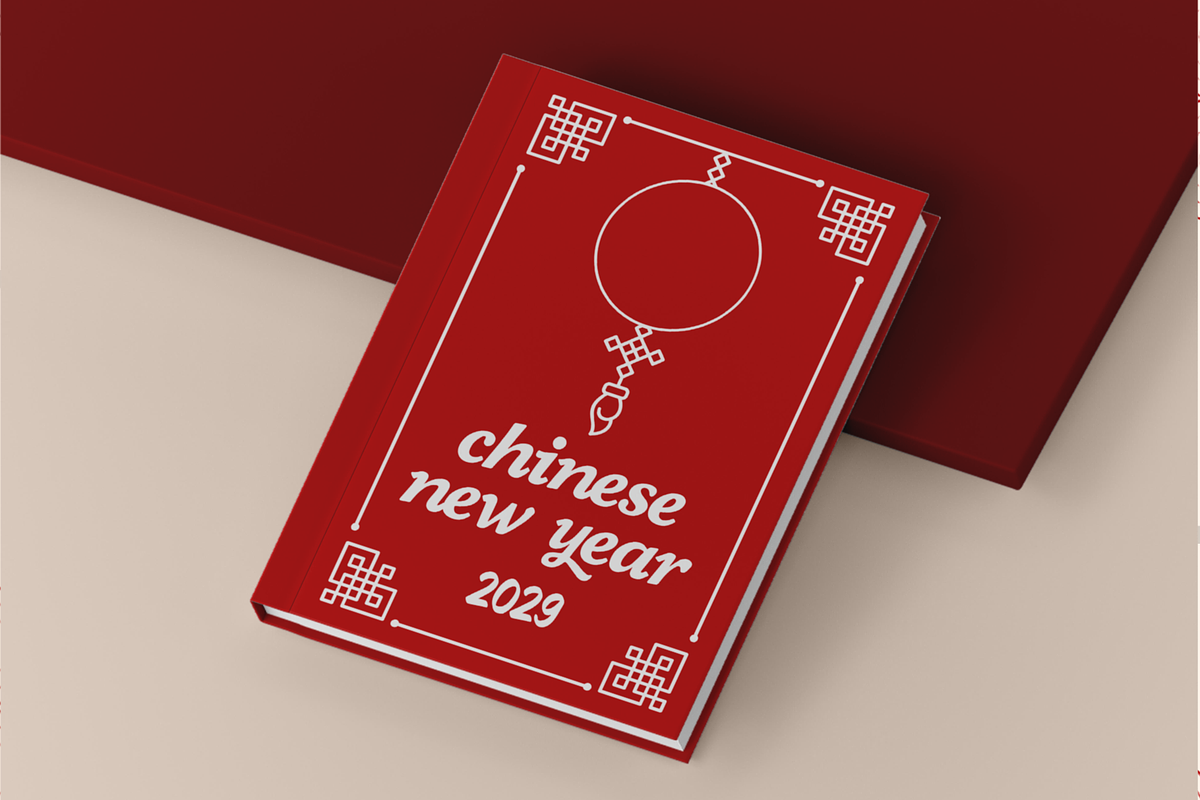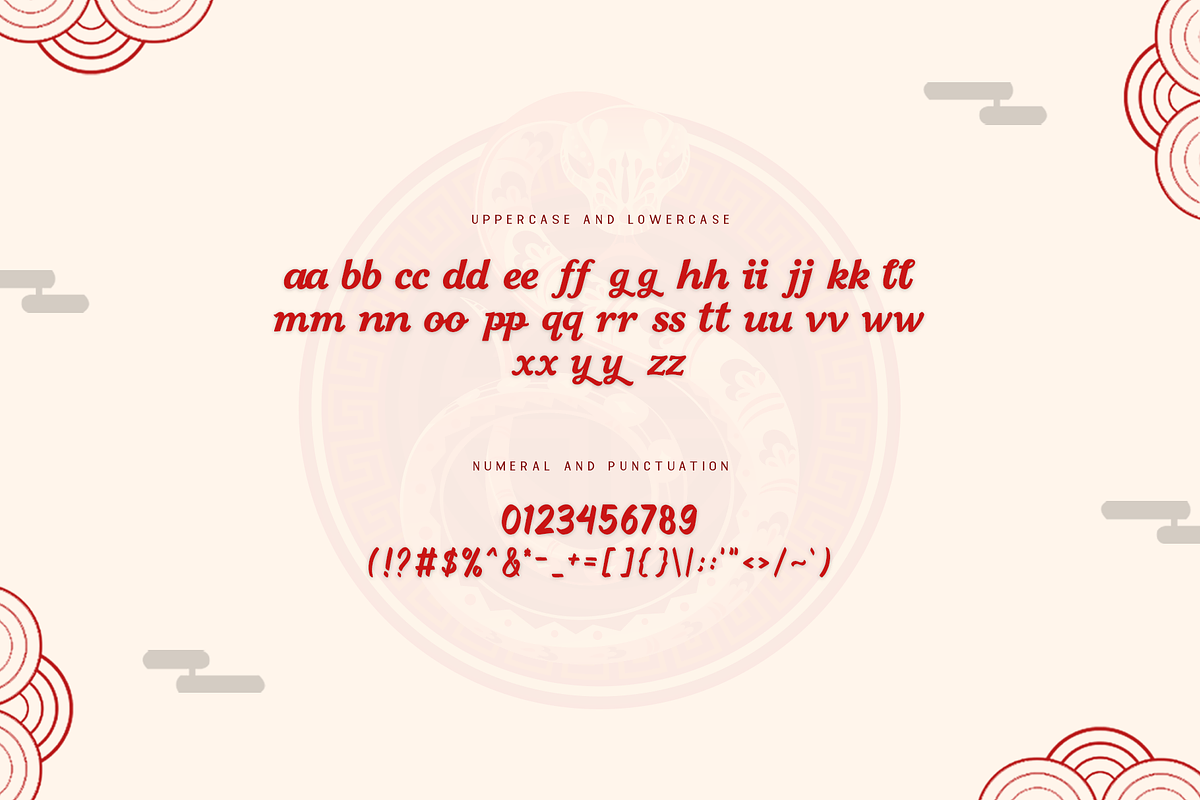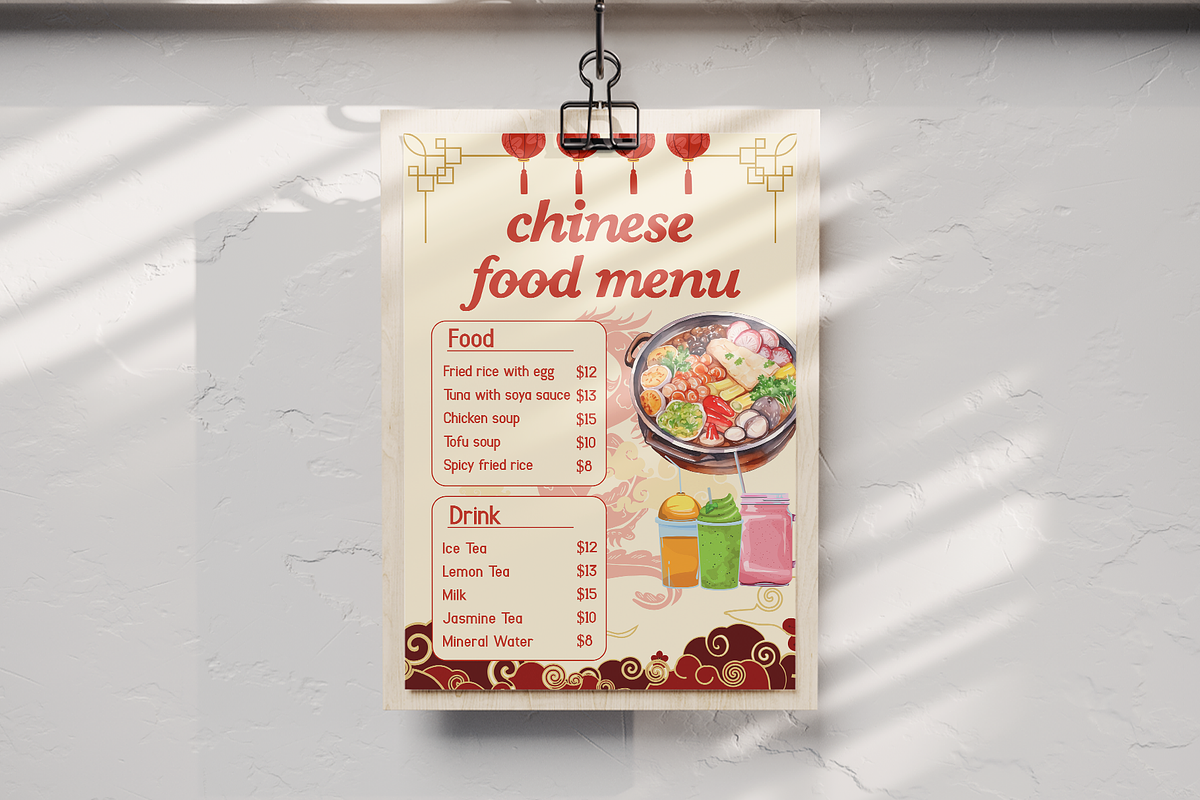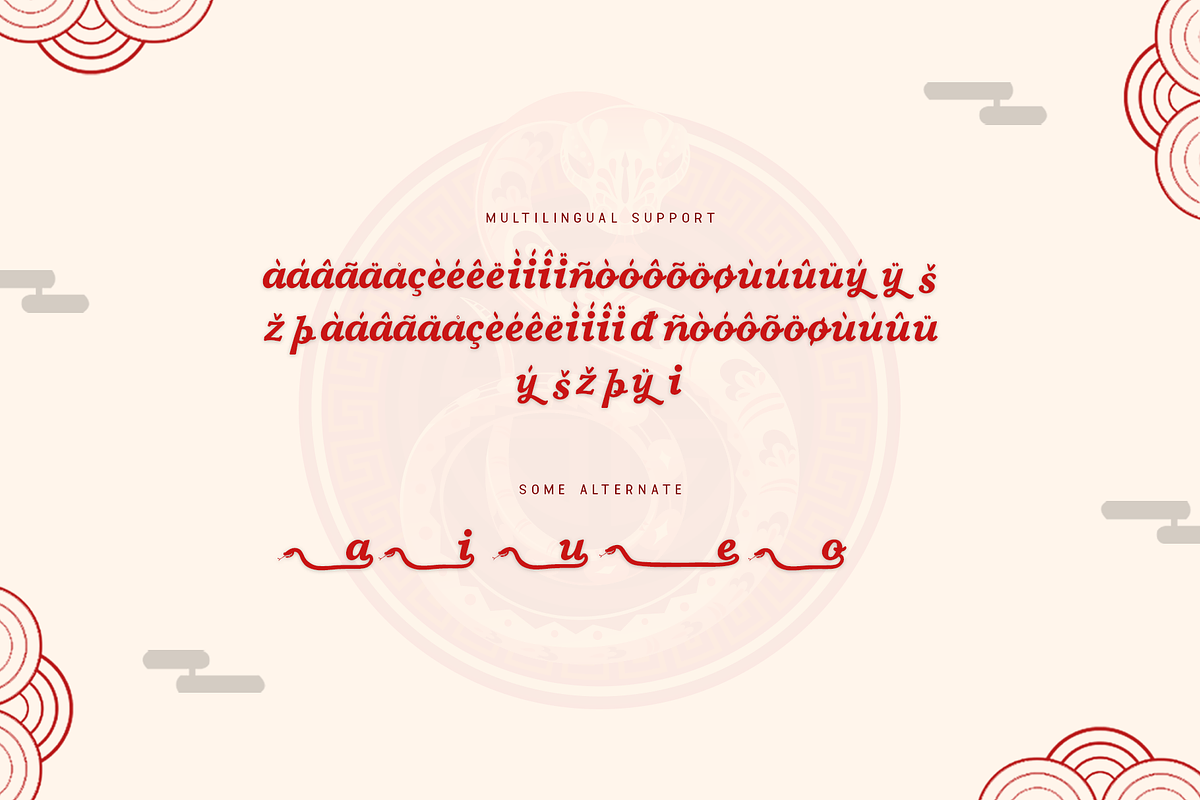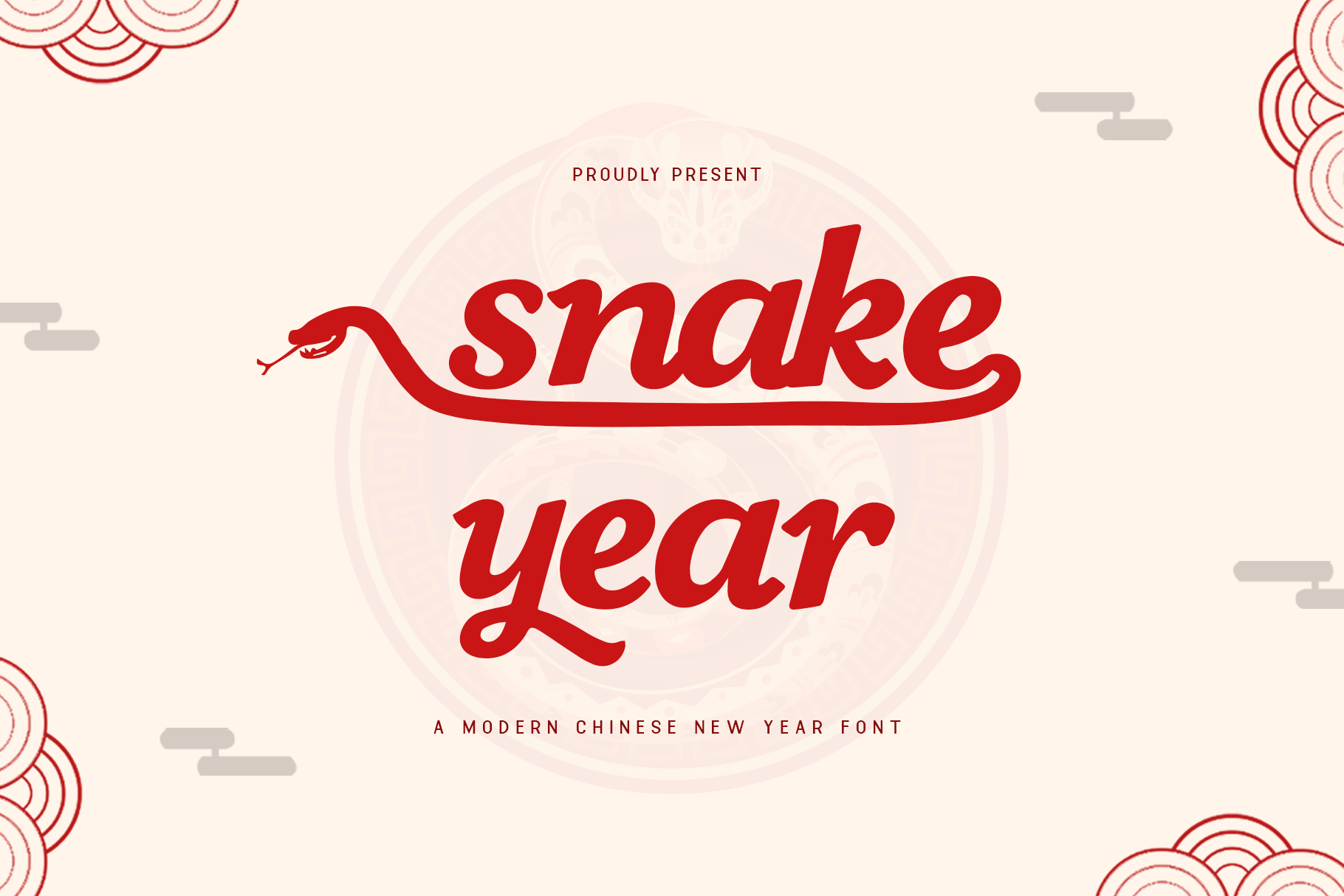
Snake Year - Modern Chinese New Font
Snake Year - A Modern Chinese New Year Font
Welcome the Year of the Snake with Snake Year, a modern font that captures the power and mystery of this zodiac sign. Bold yet elegant, this typeface brings the essence of the snake into your Chinese New Year designs, making it perfect for event invitations, branding, and promotional materials.
With sleek, serpentine curves and strong, impactful lines, Snake Year evokes wisdom, renewal, and good fortune key themes of the Lunar New Year. Its versatile design ensures it stands out in any creative project, from event posters to festive packaging.
Snake Year is the ultimate font for adding powerful cultural symbolism and modern flair to your Chinese New Year designs.